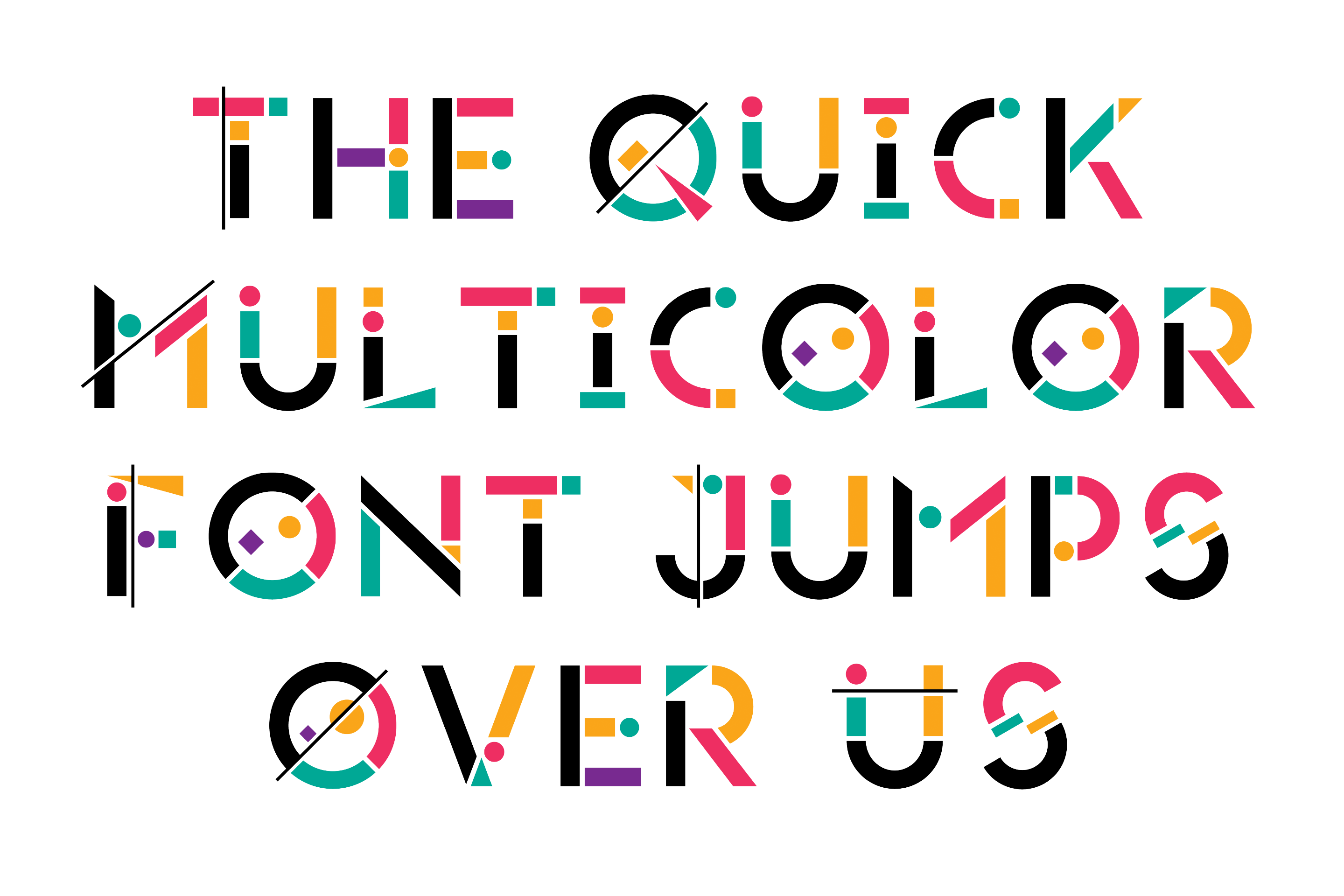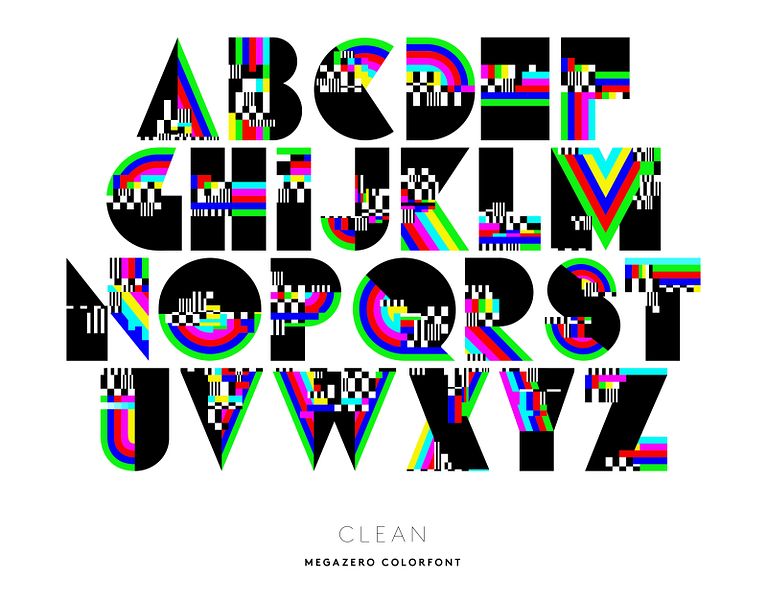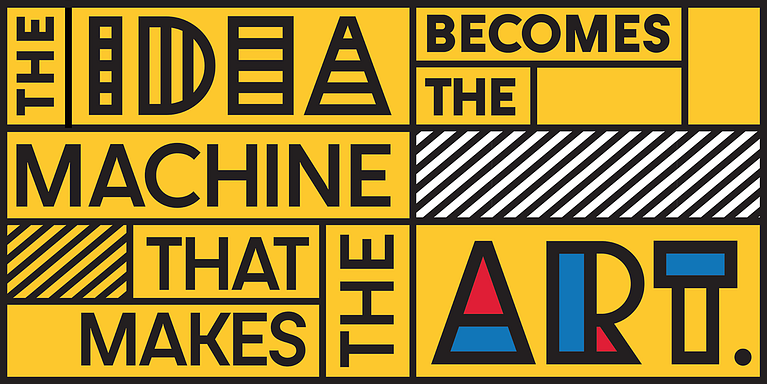
What is the Color Font Trend?
We speak to Alex Trochut about one of the most interesting typography trends right now: color font
Alex Trochut (@trochut), works in graphic design, typography, and illustration. He takes language further with innovative letter designs. In a journey of discovery, through fun and amazement, Trochut worked out that words and designs must be legible but can also transmit meaning visually in a less conventional way.
We decided he was best qualified to explain what a color font is. Learn more about this new colorful typographic concept, and the impact it can have on digital design.
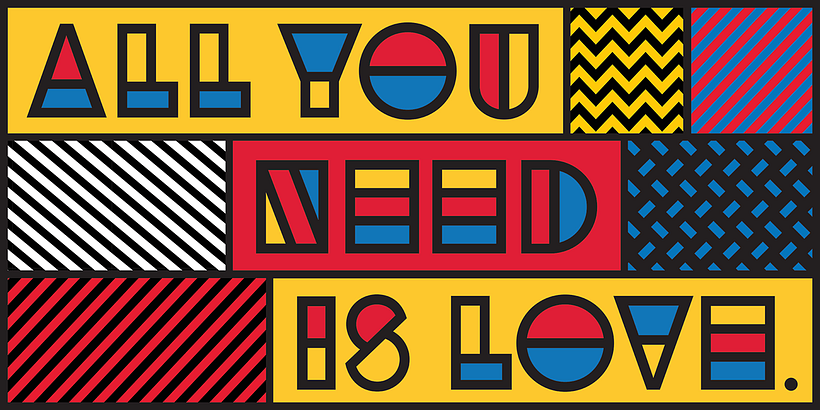
What is a color font?
Color fonts are colored text type fonts. They are the next best thing in graphic design. They come in multiple colors, hues, textures, and transparencies. They include vectorial shapes, bitmap images–or both–in the font files.
They represent a key evolution in digital typography and can be applied to all kinds of text, as they include a wide range of characters, including icons and emojis.
Where are they used?
In any context that allows the use of display typeface.
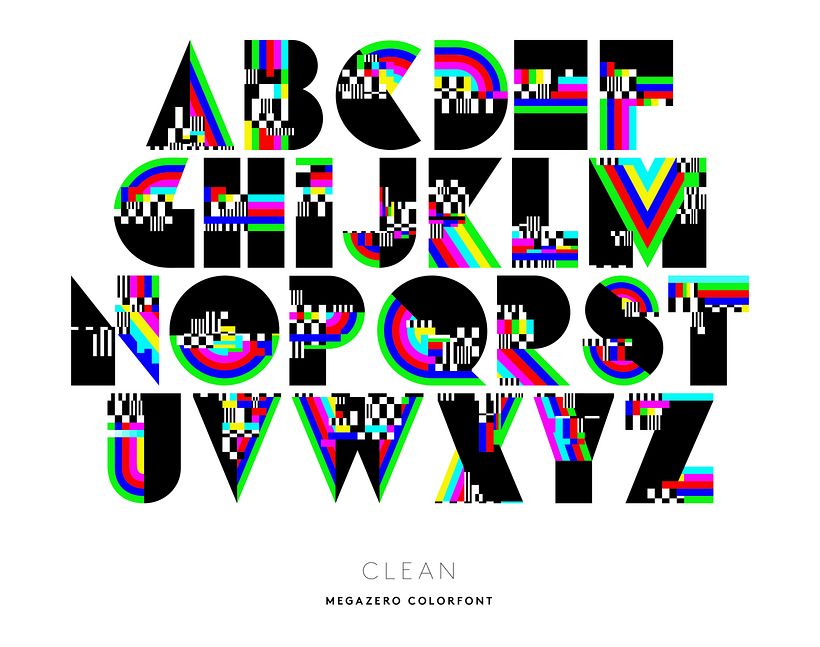
What was the first example of a color font?
The first to appear is called Gilbert. It is a free type inspired by the iconic Rainbow Flag and created to honor the memory of its originator, Gilbert Baker. It was originally designed for the headlines and statements of banners for rallies and protests but was eventually developed into a whole family of weights and styles.
In addition, the type was enhanced with Animography, to give it movement. Animations, films and videos, social publications, GIFs, and much more were created.
How did you start to create color fonts?
I started working with Fontself Maker, a plugin for Illustrator and Photoshop that allows designers to convert any vectorial art piece into a letter, including color, gradients, and other fun stuff that opens up a whole world of possibilities. It’s an easy tool to use and can be a good starting point for designers or those who wish to start out in typography.
Why do you think it should be used more?
Adding a color dimension opens a whole spectrum of opportunities in typography.
Not depending only on black and white to define the shape and depth of a letter opens up many possibilities. Furthermore, due to the endless need for generating content all the time, a color font provides a more identifiable and expressive visual aspect. It is an effective tool for brands and clients who need to communicate messages quickly and in a very recognizable manner.
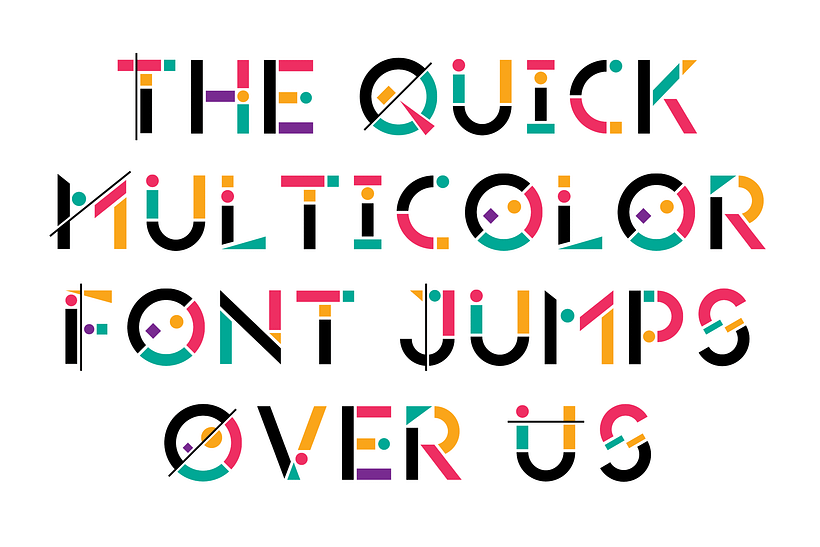
What shapes can you make in this new way?
Any vectorial shape that can be connected to a character, as long as it is less than 1000 in size. The color fonts based on vector glyphs can be changed in size without a loss of quality, as per any regular font.
Where can we find color fonts?
As their use is still limited they are not compatible with every platform or program but are available in many type foundries, such as Adobe Typekit and Sudtipos.
What is your favorite color font specimen?
Sudtipos’s Utopian is very good. It’s a family of fonts based on primary colors and pure geometric shapes, influenced by Bauhaus, DeStjil and Art Deco. The pure shapes and the basic colors are inspired by the beauty and simplicity of modular order and the grid layout. They provide a perfect environment where all the elements live in perfect harmony of color.